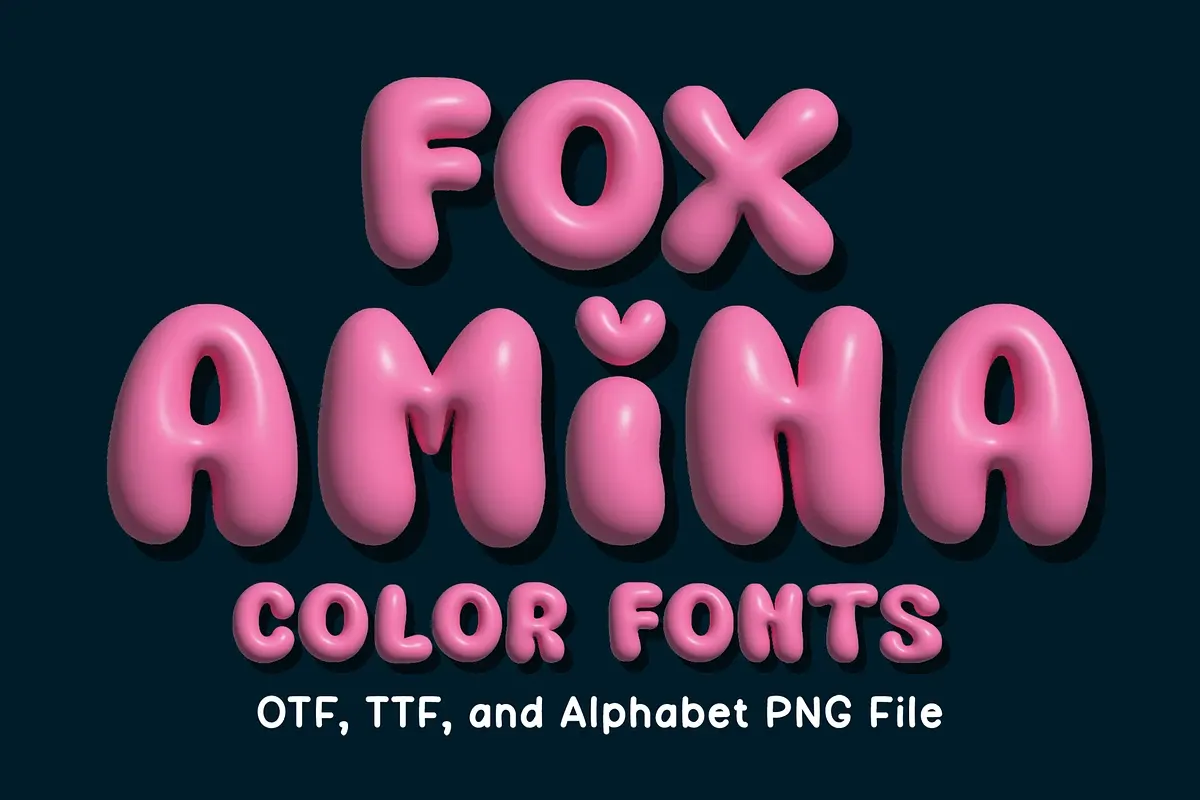
The Fox Amina Color Font Free Download is a vibrant and playful typeface that adds a splash of color to any design. Perfect for projects that require a fun, eye-catching look, this font allows you to incorporate multiple colors into your text, creating a unique and visually dynamic design. Whether you're working on branding, posters, or digital artwork, this colorful font brings a modern touch to your creative projects.
Fox Amina Color Font Free Download is an ideal choice for designers looking to add bold, colorful text to their projects. Its vibrant colors and striking appearance make it perfect for advertisements, social media posts, and other creative ventures. Download this fun and colorful font today and enhance your designs with a burst of color!